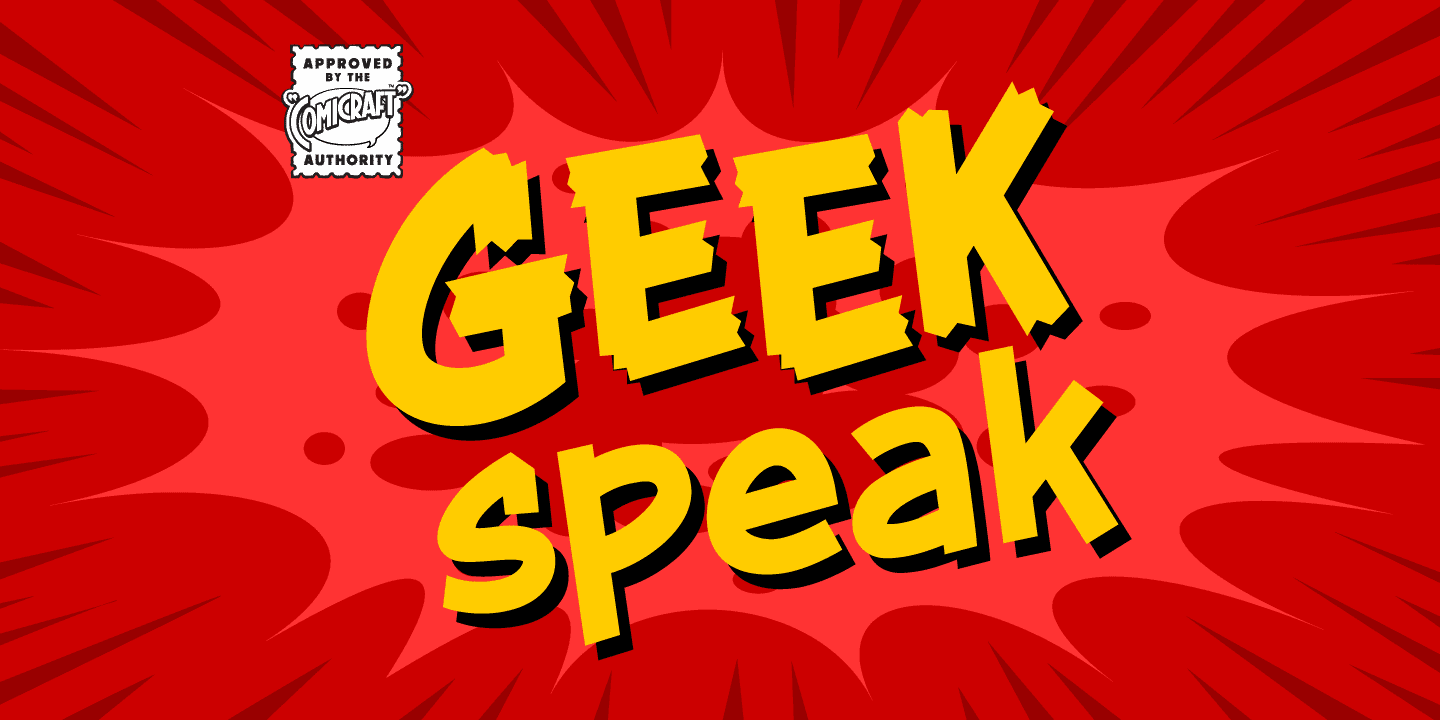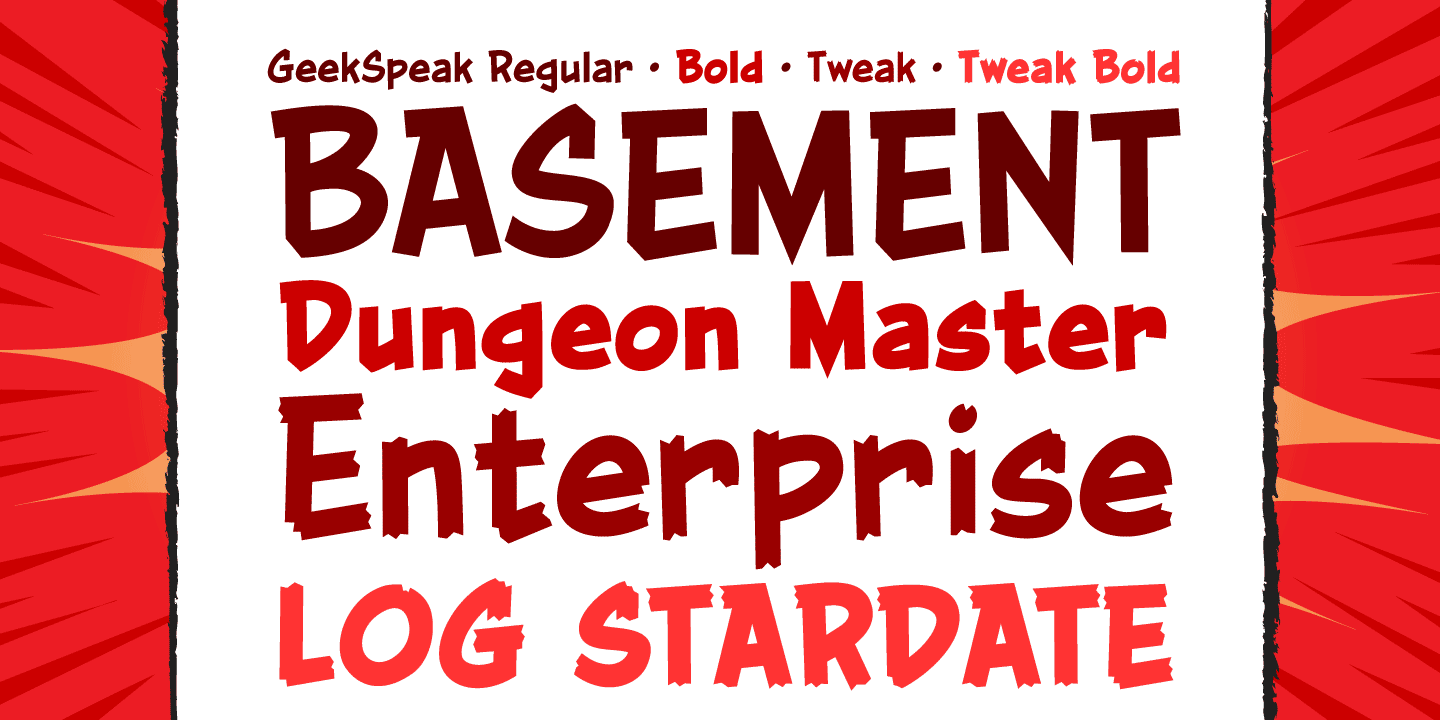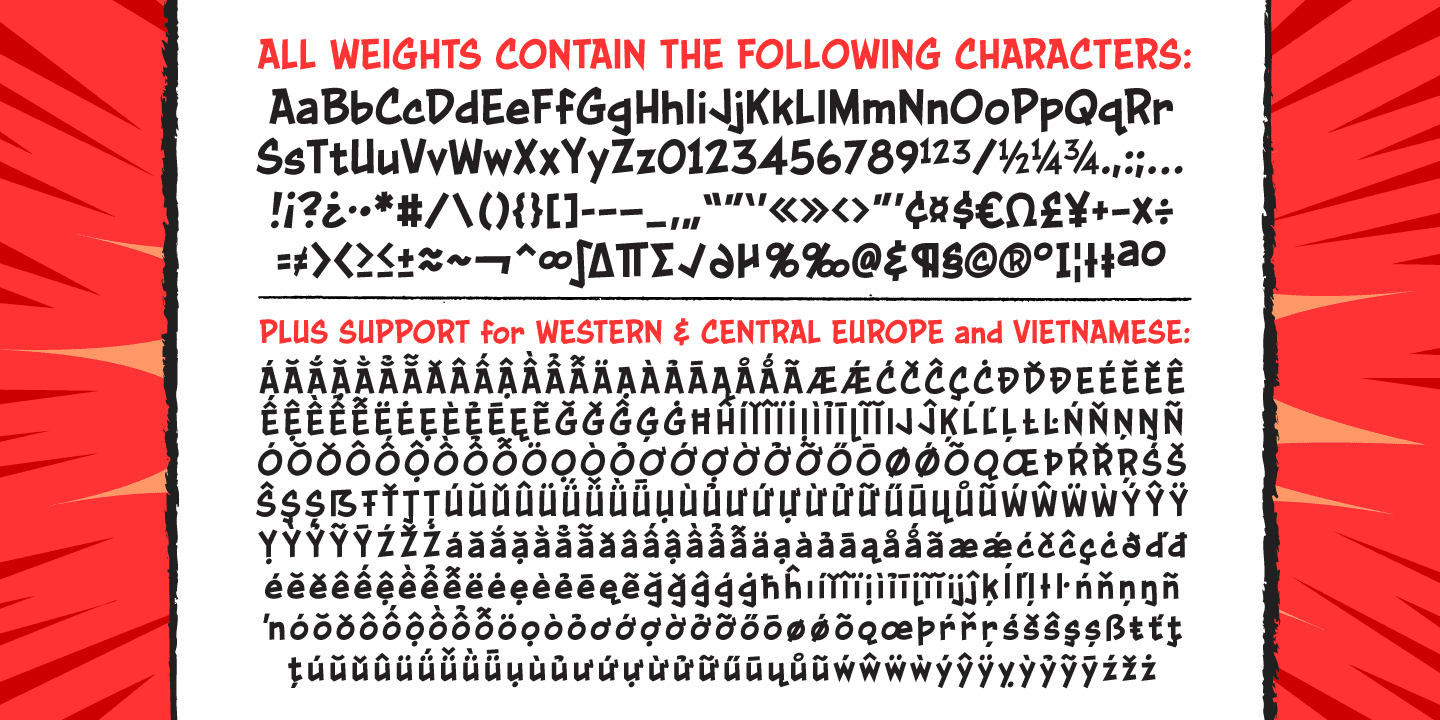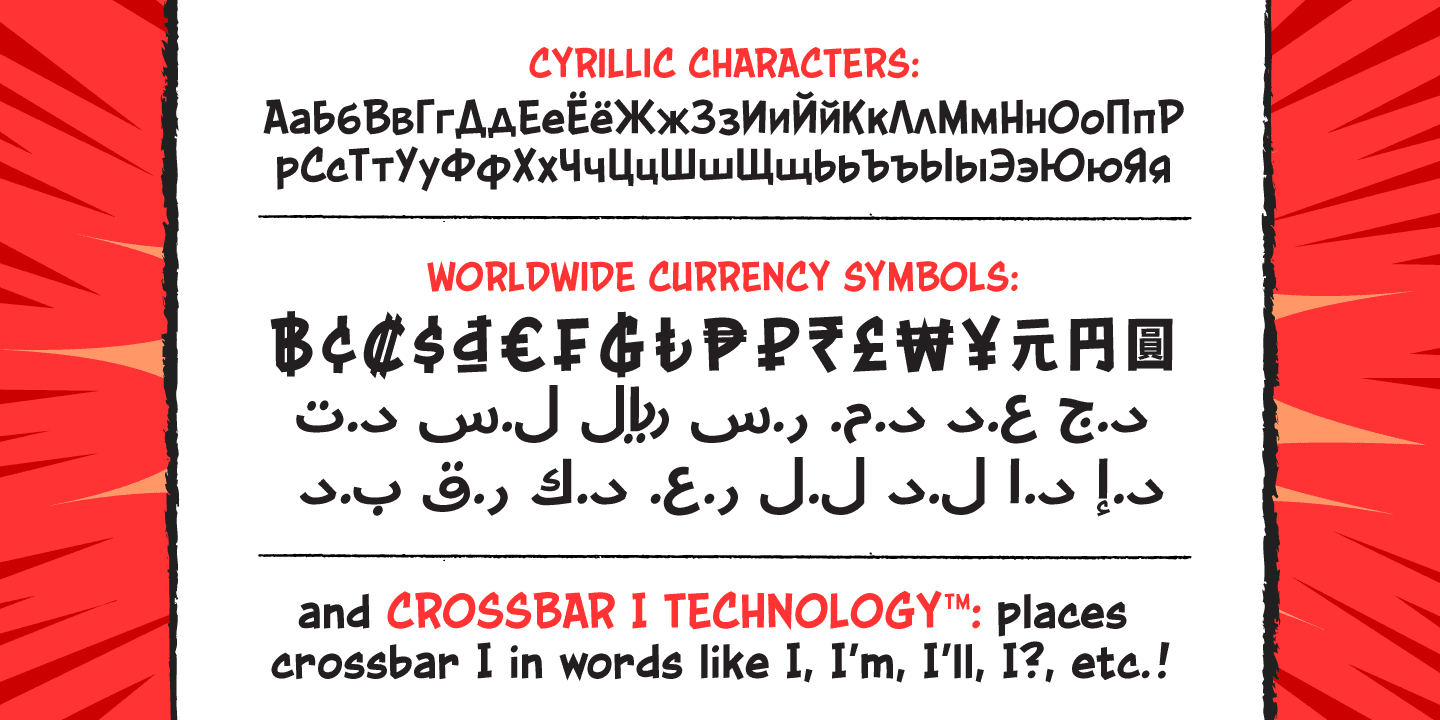
About Geek Speak Font Family Scissors cuts paper, paper covers rock, rock crushes lizard, lizard poisons Spock, Spock smashes scissors, scissors decapitates lizard, lizard eats paper, paper disproves Spock, Spock vaporizes rock, and as it always has, rock crushes scissors.If you’re familiar with this theory, you already Speak Geek, and now you can download a font that has 250 friends on comicbookfonts.com but has never met one of them.
Take it to Comic-con this weekend and take photos of Wonder Woman cosplayers together then post them to your tumblr account… Or head down to the basement for D&D and debate the merits of George Lucas fiddling with his trilogies.
Yep, GEEKSPEAK shoots first — put that on a t-shirt! And gimme some Spock. * Comicraft fonts are created by actual comic book letterers for actual comic book lettering Designers: John RoshellPublisher: ComicraftFoundry: ComicraftDesign Owner: ComicraftMyFonts debut: May 3, 2012 Geek Speak